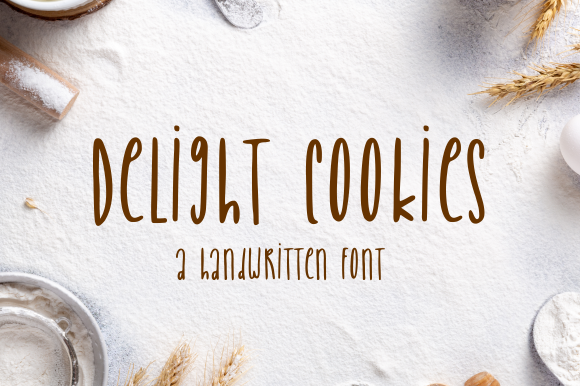
Unleash the charm and whimsy of Delight Cookies, a captivating script font that dances across your screens with effortless grace. Fall head over heels for its sweet and delicate strokes, lovingly crafted to bring a touch of magic to your creative projects. Whether you seek to add a personal flair to invitations, greeting cards, social media posts, or branding materials, Delight Cookies is your perfect companion.
Immerse yourself in the versatility of this extraordinary font, effortlessly transforming your words into works of art. Its carefully designed characters exude elegance and charm, adding a touch of sophistication to any design. With its playful personality and endless possibilities, Delight Cookies will elevate your creations, leaving a lasting impression on all who encounter it.
Tailored meticulously for small display sizes, Delight Cookies shines even in the most compact spaces. Say goodbye to pixelated or blurry text and embrace the crisp, clear beauty of Delight Cookies, ensuring your message captivates even the most discerning eyes. Its compact structure ensures readability without compromising on style, making it an ideal choice for logos, product labels, and other small-scale designs.
Delight Cookies is a font that speaks to the heart. Its enchanting curves and playful strokes evoke emotions, creating designs that resonate with audiences. Let your imagination soar as you explore the endless possibilities of this remarkable font, transforming ordinary text into extraordinary expressions.
Join the creative revolution and embrace Delight Cookies, a font that embodies uniqueness and charm. Its meticulously crafted characters, tailored for small display sizes, will add a touch of magic to your designs, leaving a lasting impression on all who encounter them. Experience the joy of effortless creativity and let Delight Cookies be your guide to a world of visual delight.
Unlock the full potential of Delight Cookies today and embark on a journey of creative expression. Let your imagination run wild as you craft designs that captivate and inspire, making a statement that reflects your unique style and vision. Delight Cookies awaits you, ready to transform your creative dreams into reality.